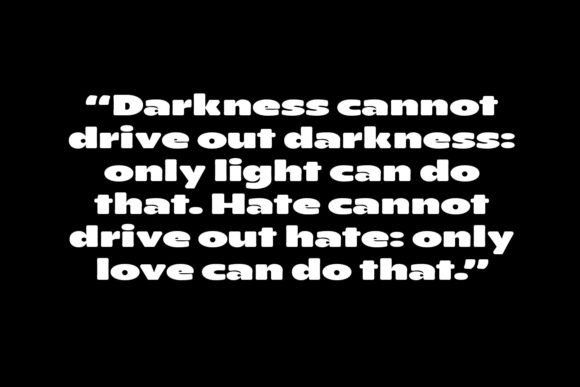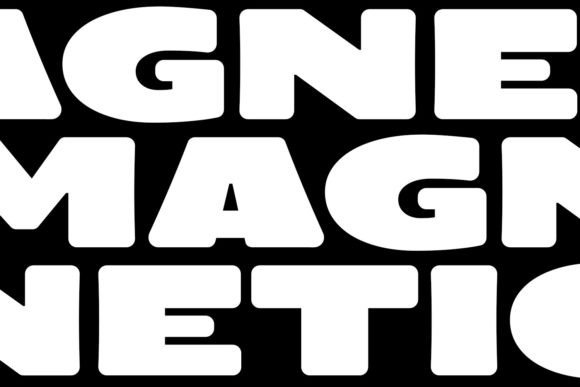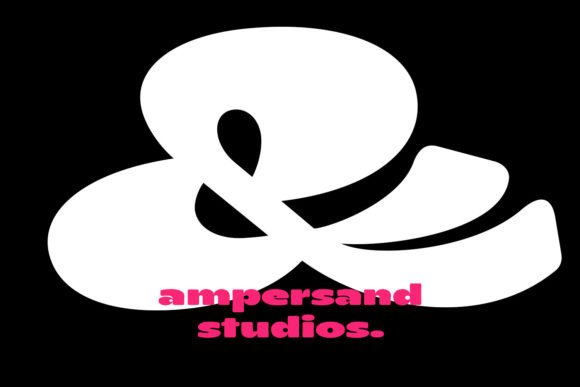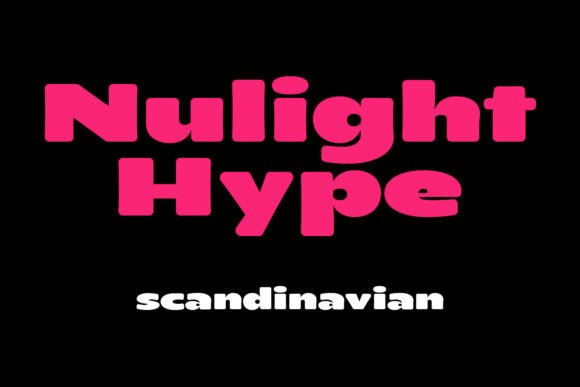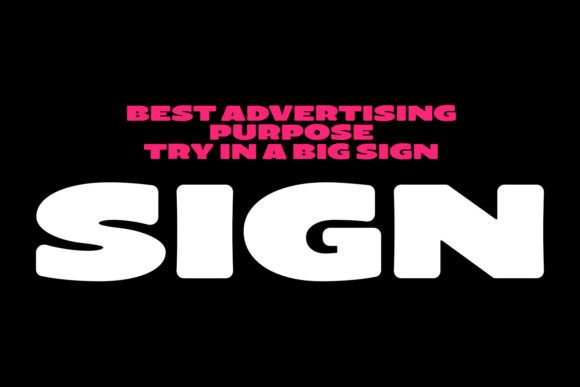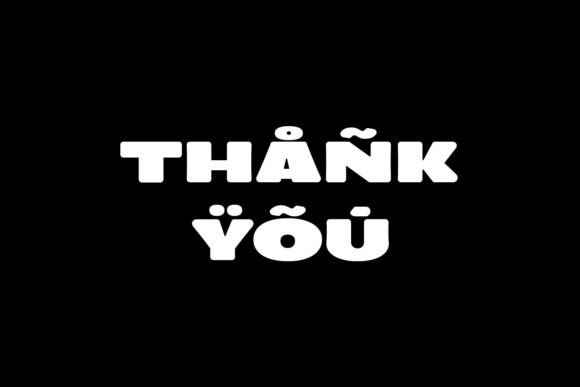
Introduction to Preich Font
Have you ever been working on a creative project, only to be stuck on the perfect font to bring your vision to life? I know I have. One day, while brainstorming ideas for a client’s presentation, I stumbled upon the Preich Font – and everything changed.
Preich Font is more than just a font; it’s a game-changer for designers and crafters alike. This wide rounded sans serif font is perfect for a variety of creative endeavors, from digital designing to greeting card making. Its versatility and high-quality design make it an invaluable resource for any project.
Whether you’re looking for a free download or need a reliable design resource, the Preich Font delivers. With its transparent background and sleek design, you can easily integrate it into your next creative project – and make it truly shine.
Key Features of Preich Font
- Comes with a transparent background, making it ideal for use on various design elements.
- Unique, stylish design that sets it apart from other fonts, perfect for adding a touch of elegance to any project.
- Easy to use and customize, making it an excellent choice for designers of all skill levels.
Honest Review: Preich Font
I recently had the chance to work with the Preich Font, and I must say it’s been a pleasant experience. The font is perfect for a design project that requires a unique touch. ✨
Here are some of the things that I love about the Preich Font:
- High-quality design: The font is crisp and clean, making it perfect for both digital and print projects.
- Transparent background: This allows for easy layering and compositing, making it a great resource for designers.
- Limited font styles: While the font itself is high-quality, there are limited styles to choose from, which may not be ideal for projects that require a lot of variety.
- Not suitable for all projects: The font’s unique design may not be suitable for projects that require a more traditional or conservative look.
Overall, I’m impressed with the Preich Font. It’s a great resource for designers looking for a high-quality, unique font to add some creativity to their projects. With a little creativity, I think it could be a valuable addition to any design resource collection. ⚠️
How to Use Preich Font
Designing with Preich Font
With its transparent background, the Preich Font is perfect for creating designs that require a subtle touch. Use it to add a professional touch to your brochures, flyers, or business cards. You can also use it to create engaging social media graphics or presentations.
To get the most out of the Preich Font, experiment with different font sizes, colors, and combinations. You can also pair it with other high-quality fonts to create a unique design. Don’t forget to save your design as a high-resolution file to ensure that it looks great on various devices.
The Preich Font is a versatile design resource that can be used in a variety of creative projects, including:
- Social media graphics and presentations
- Print design and publishing
Alternatives to Preich Font
Monserrat Font is a high-quality, free download sans-serif font ideal for creative projects that require a modern look. It features a transparent background, making it perfect for designing logos, headings, and titles. Montserrat is a popular design resource among designers due to its clean and minimalist aesthetic.
Compared to Preich Font, Montserrat has a more geometric feel, making it suitable for projects that require a modern and edgy look. Use Montserrat when you need a font that exudes sophistication and elegance.
Lato Font is a high-quality, free download sans-serif font designed for use in digital and print media. It features a transparent background and a clean, modern aesthetic, making it perfect for designing headings, titles, and body text. Lato is a popular design resource among designers due to its versatility and readability.
Compared to Preich Font, Lato has a more rounded feel, making it suitable for projects that require a friendly and approachable tone. Use Lato when you need a font that is both modern and readable.